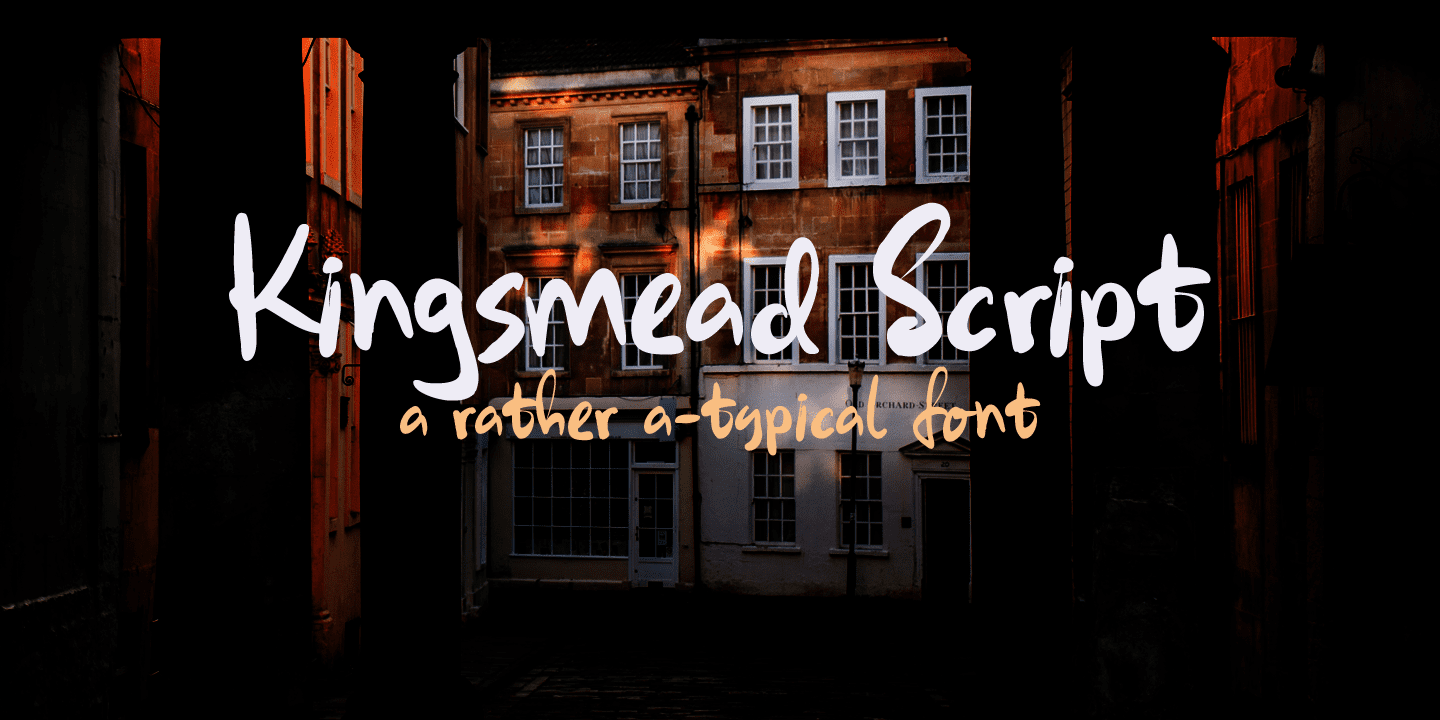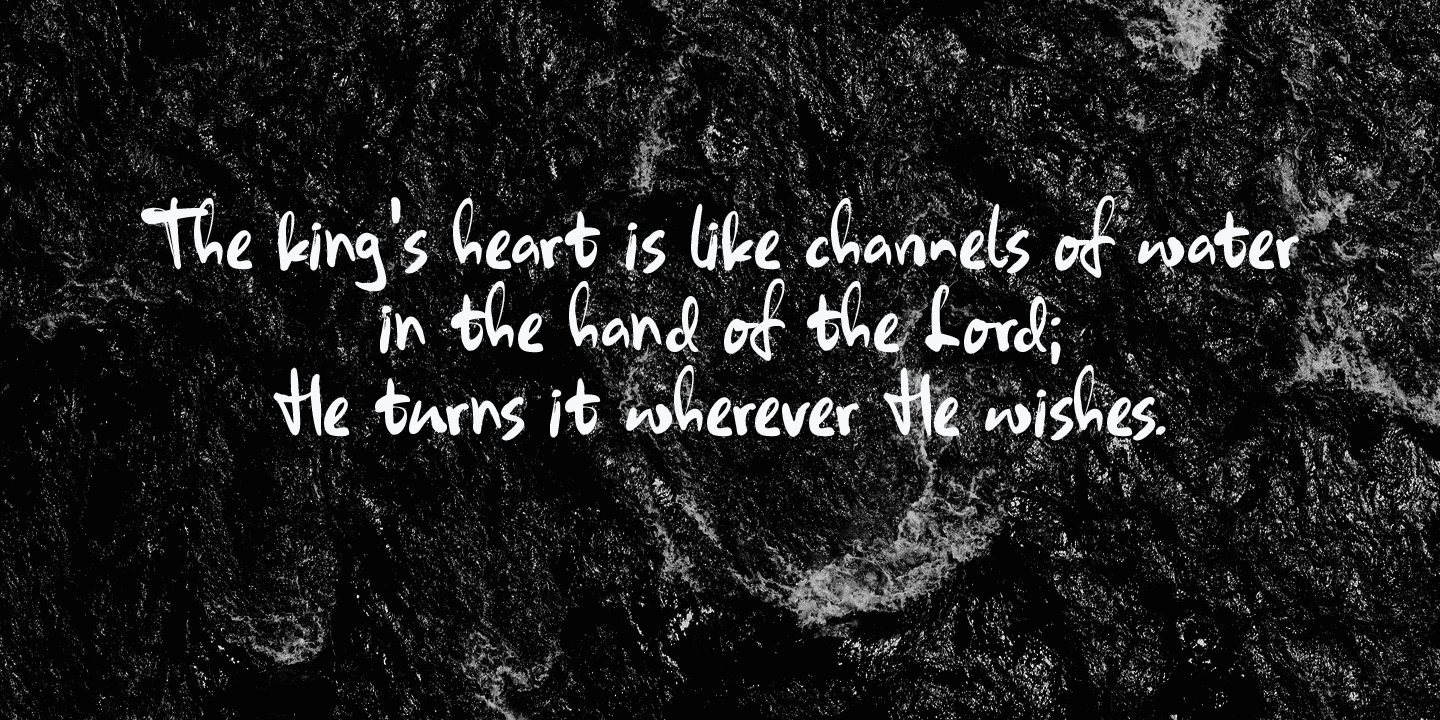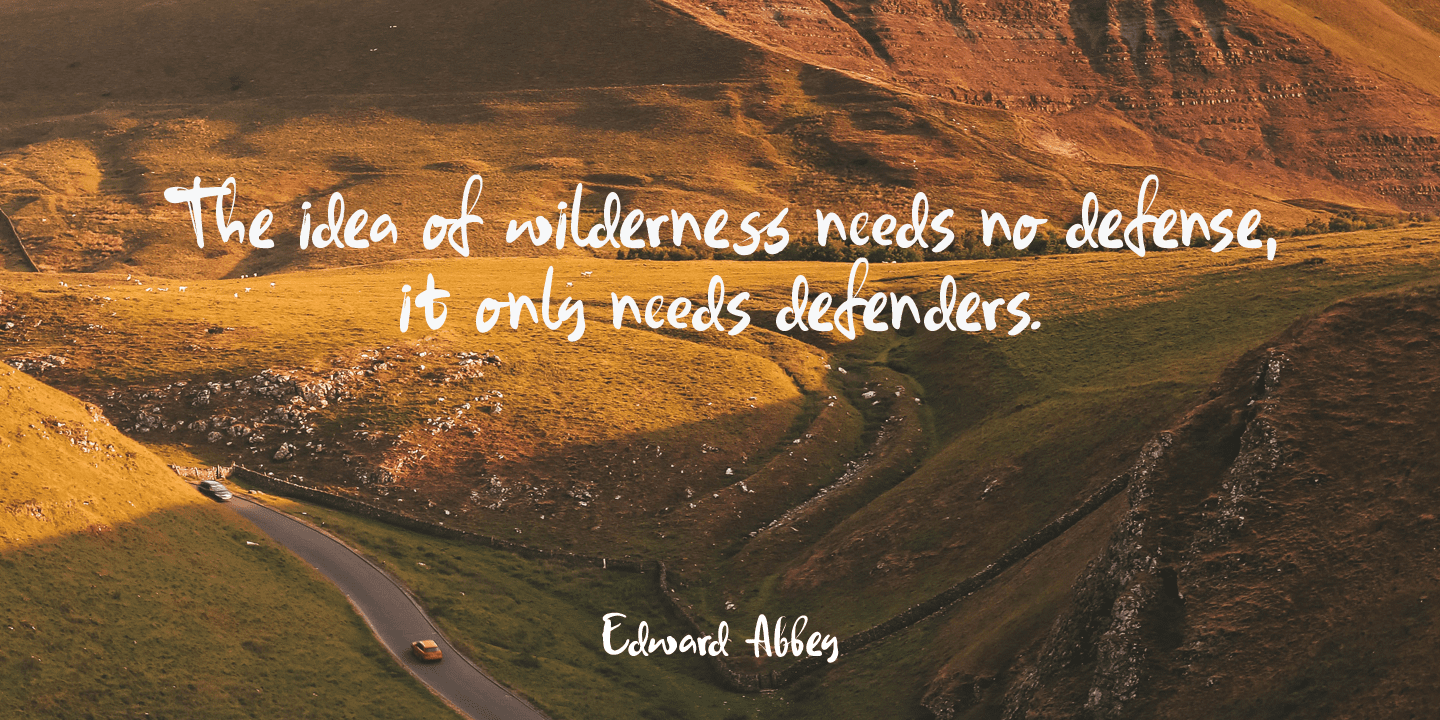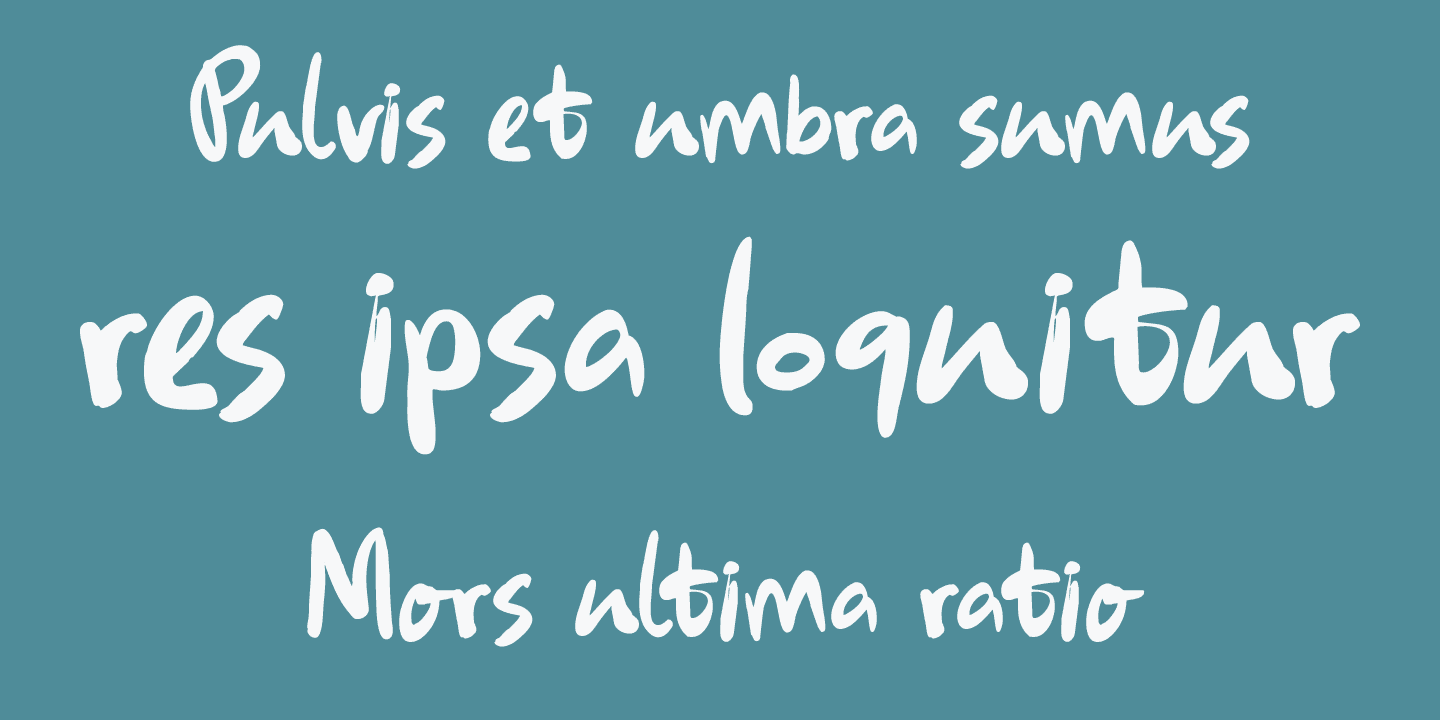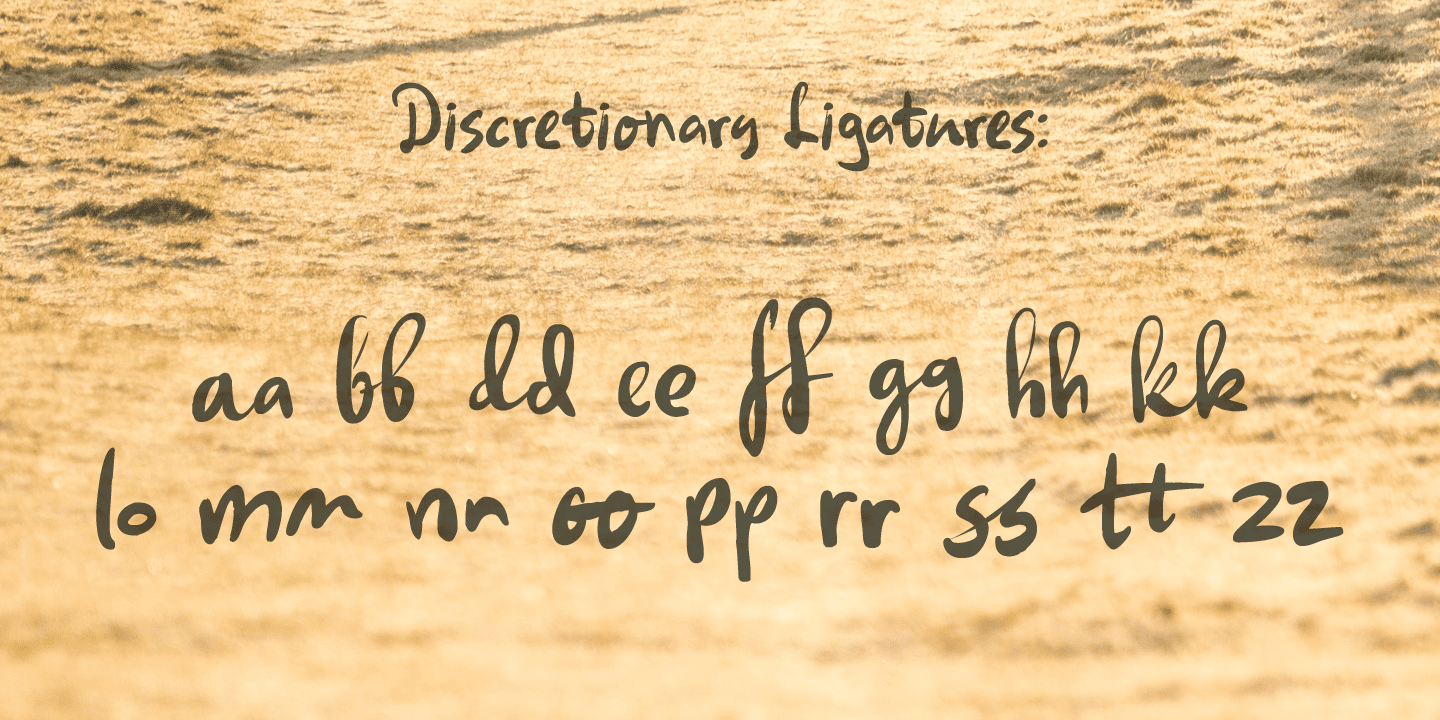
Last year I spent some time exploring the city of Bath in England. Its claim to fame are the Roman Baths in the city center, which are well worth a visit. Kingsmead is an electoral ward within Bath and I thought it was an apt name for this rather stylish - if old fashioned - font.
Kingsmead Script is a handmade font. It comes with diacritics and some discretionary ligatures for double lower case letter combinations.